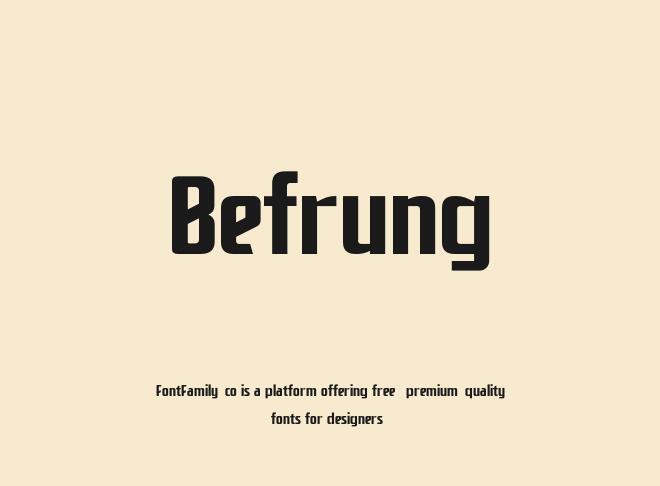
Befrung Font
Befrung Font is a modern, geometric, minimalistic, and display typeface designed by Befrung Design Studio. Its clean lines and crisp edges make it an excellent choice for both print and digital designs. Befrung Font's geometric shapes lend it a futuristic feel, making it perfect for tech startups, modern architecture firms, or any brand aiming for a sleek, contemporary look. The font's minimalistic design allows it to pair well with bold, vibrant colors or softer pastels, giving designers a versatile tool for various projects. Its unique character set distinguishes it from other fonts, providing a fresh and distinct visual appeal. Befrung Font is an excellent choice for designers seeking a modern, geometric typeface that can make a bold statement while maintaining a clean and uncluttered aesthetic.